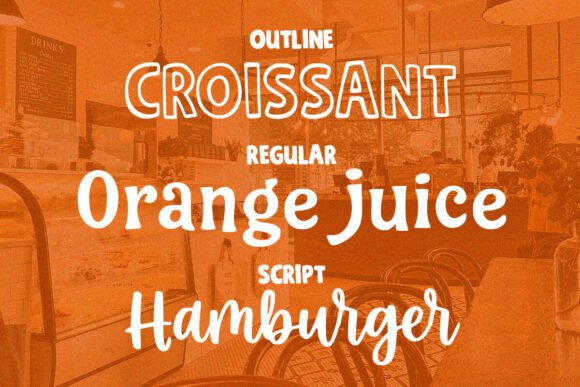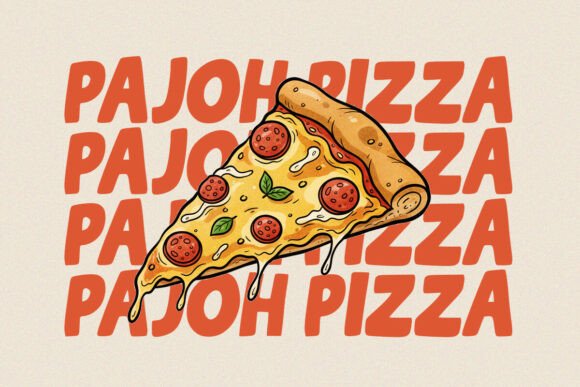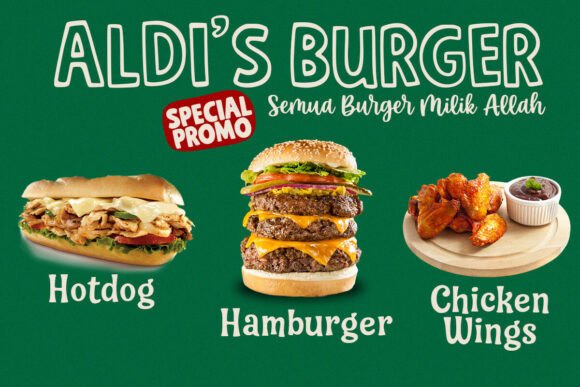
Introduction to Bad Night Font
Bad Night is a retro-funky font family, inspired by the bold and playful aesthetics of the 70s.
It features thick, expressive curves that deliver a strong vintage vibe, making it perfect for standout logos, posters, and merchandise .